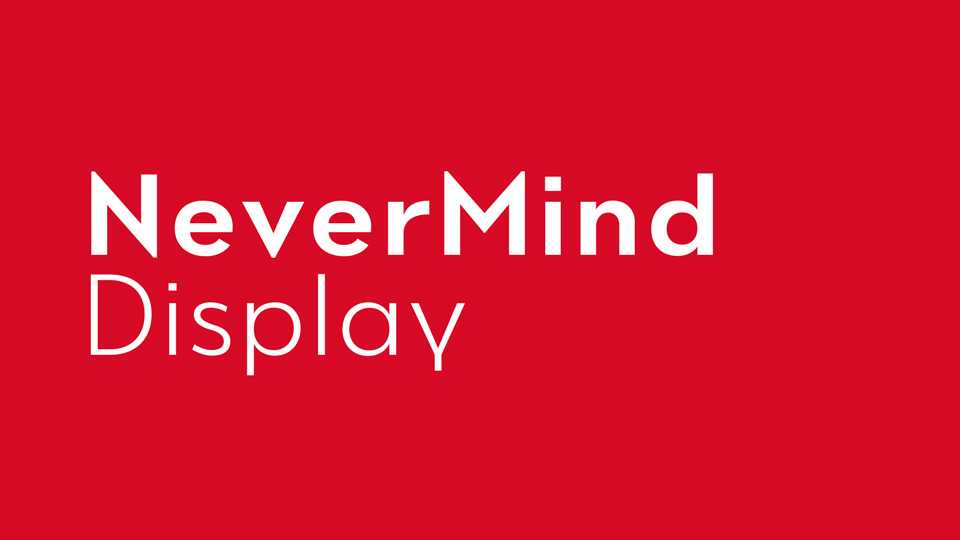
Download Nevermind Display font, a versatile sans serif typeface that seamlessly merges impactful look with contemporary edge. Modern and powerful, Nevermind Display font can be used for all types of communication.
Designer: XMind Ltd.